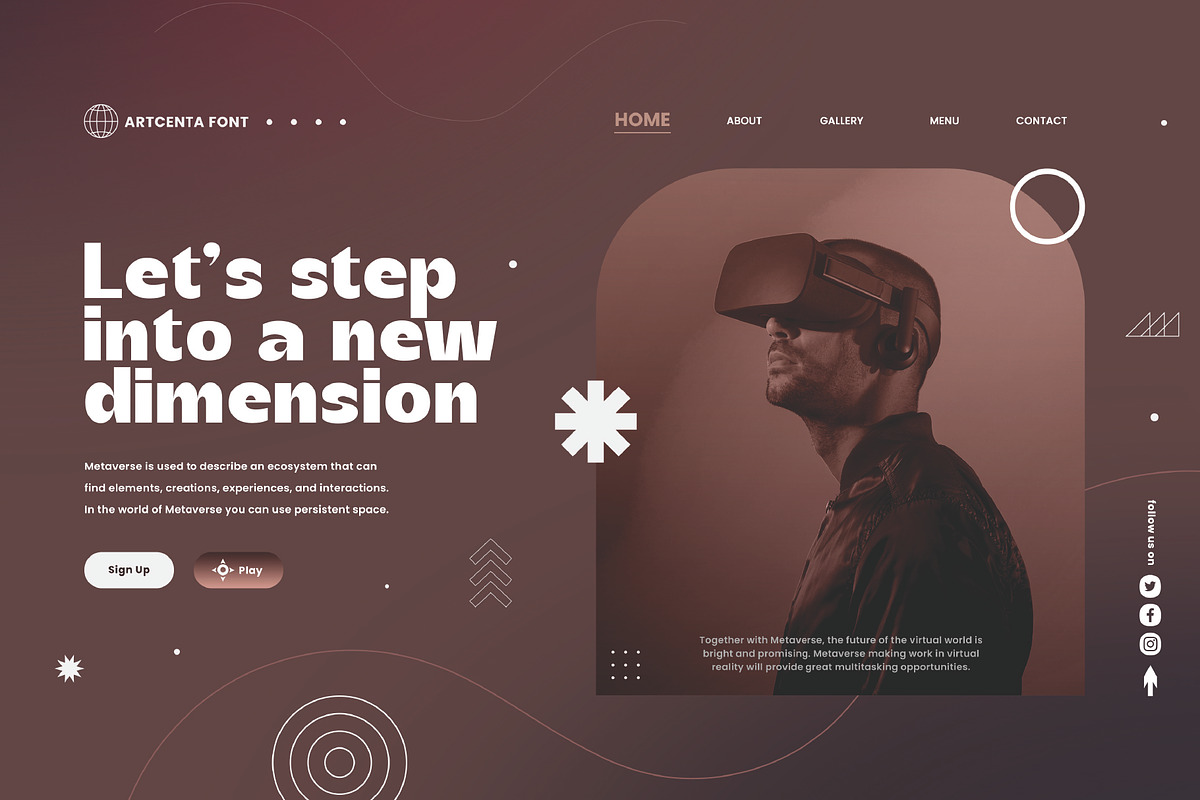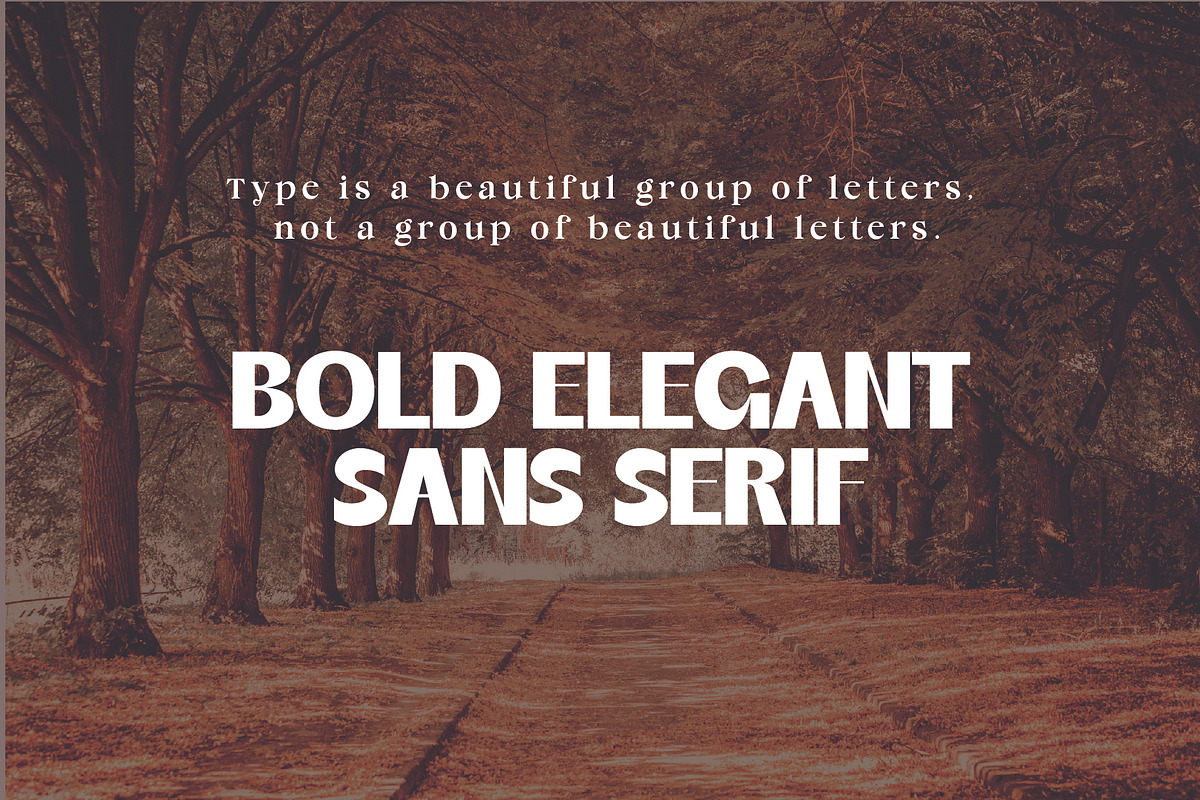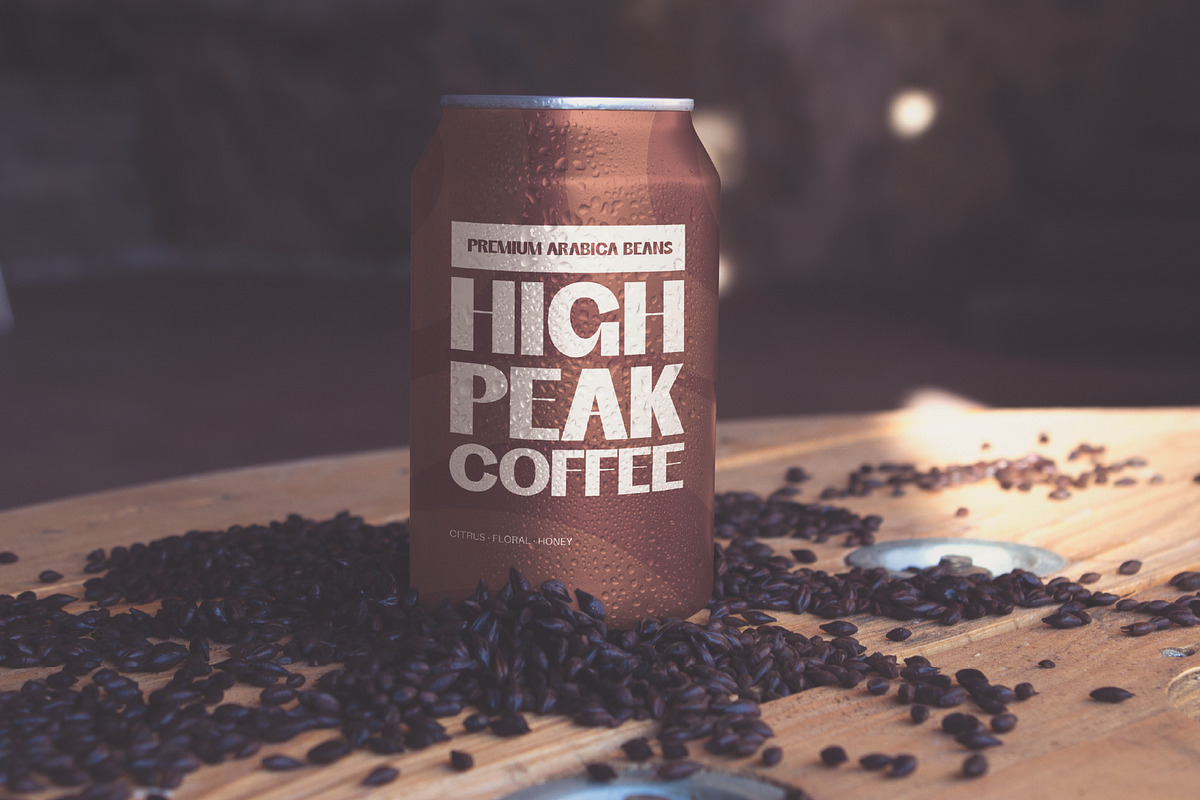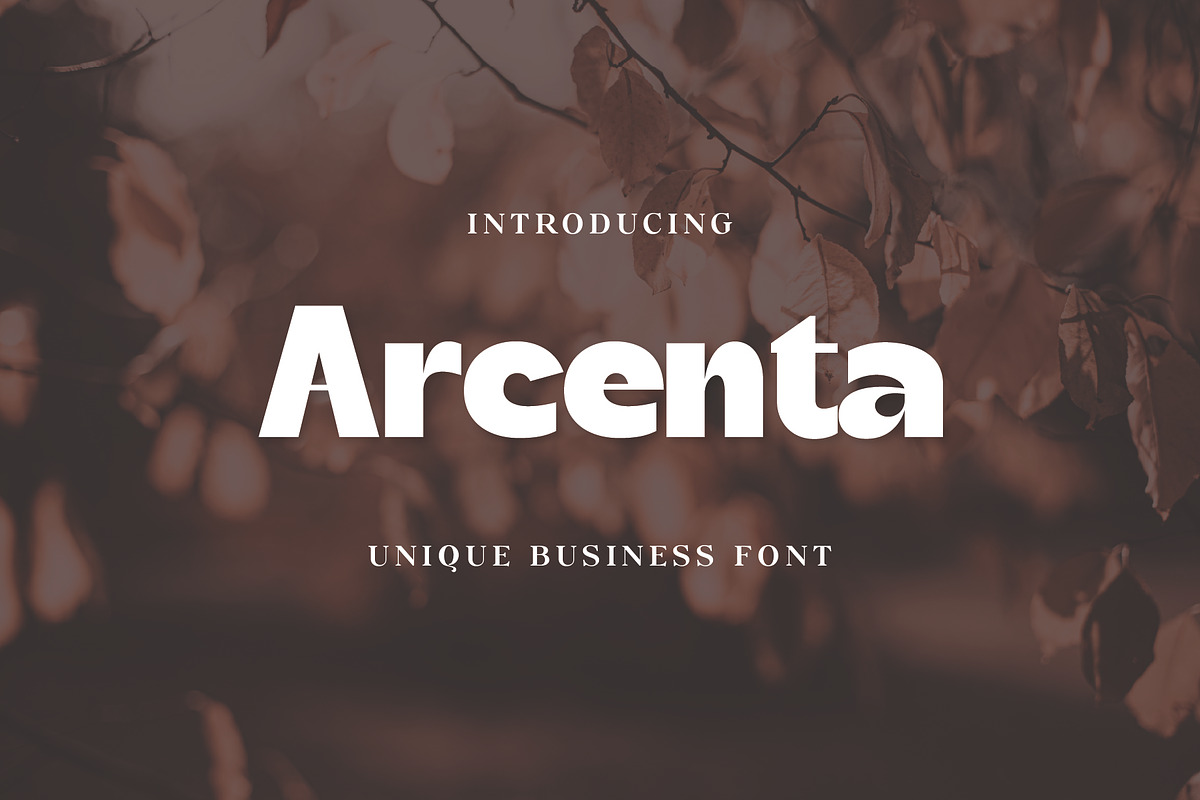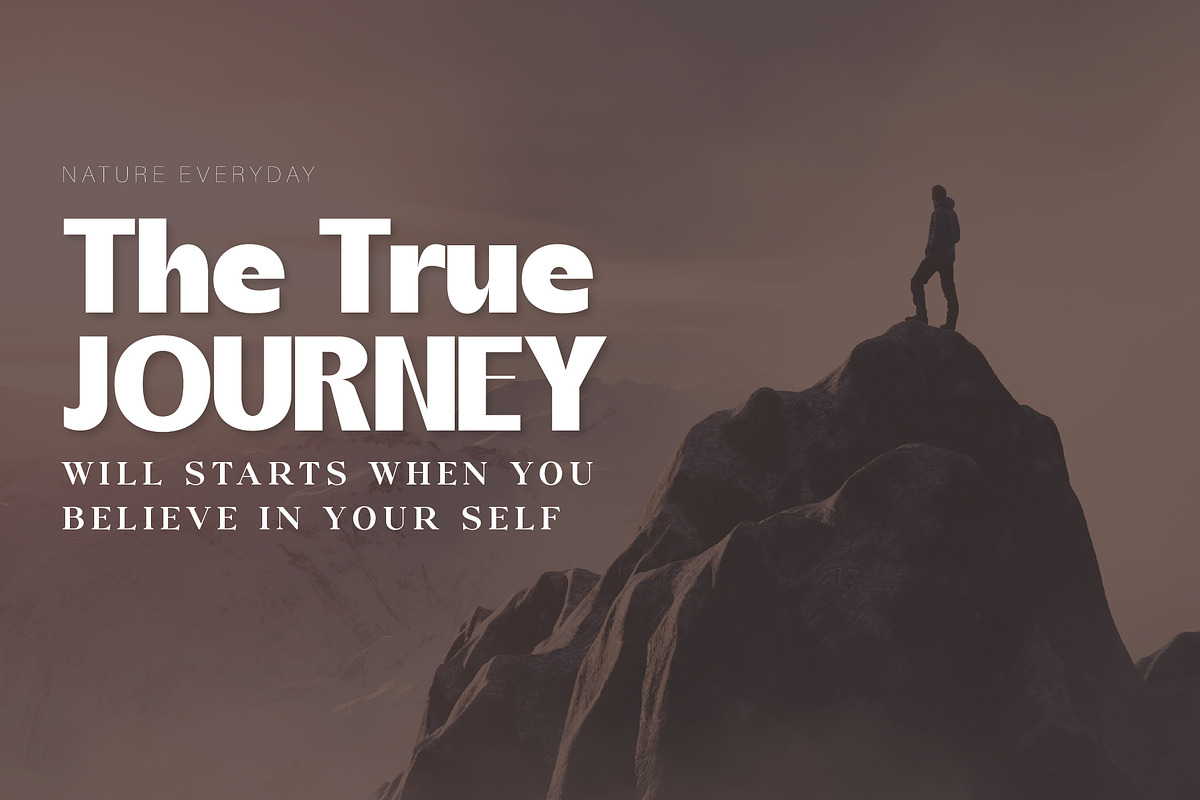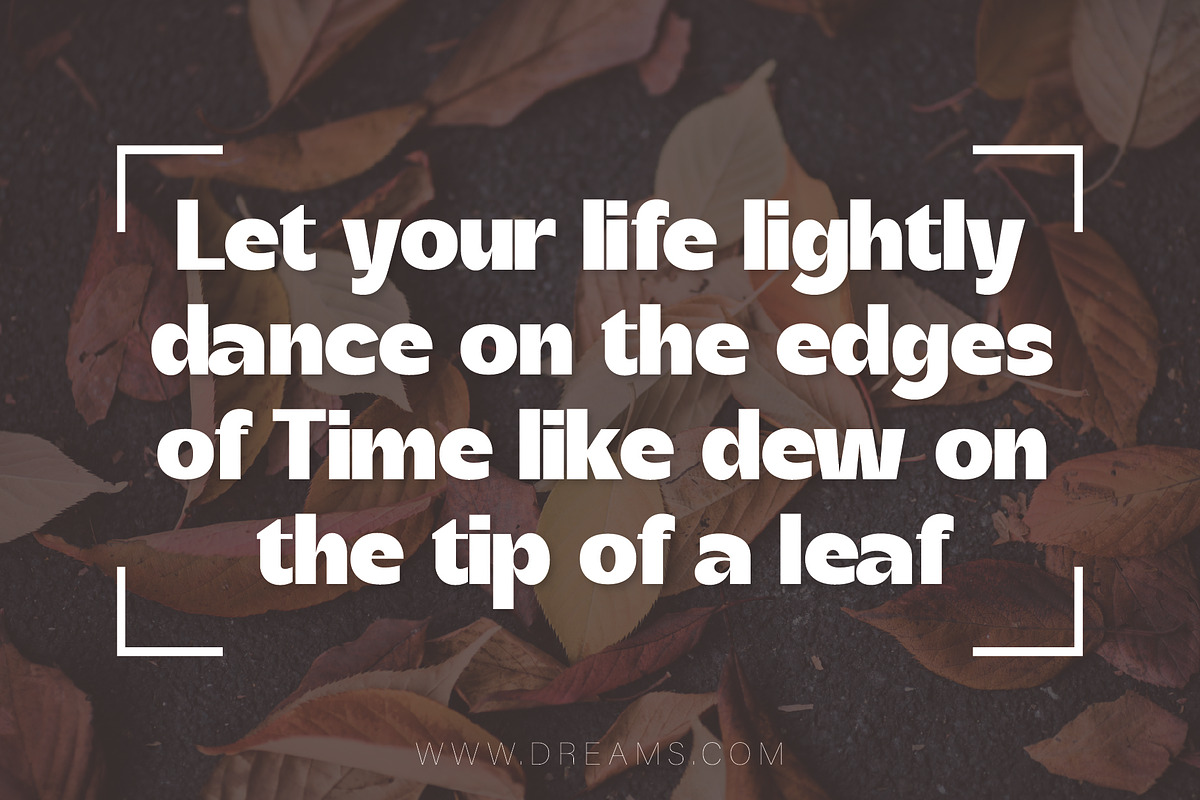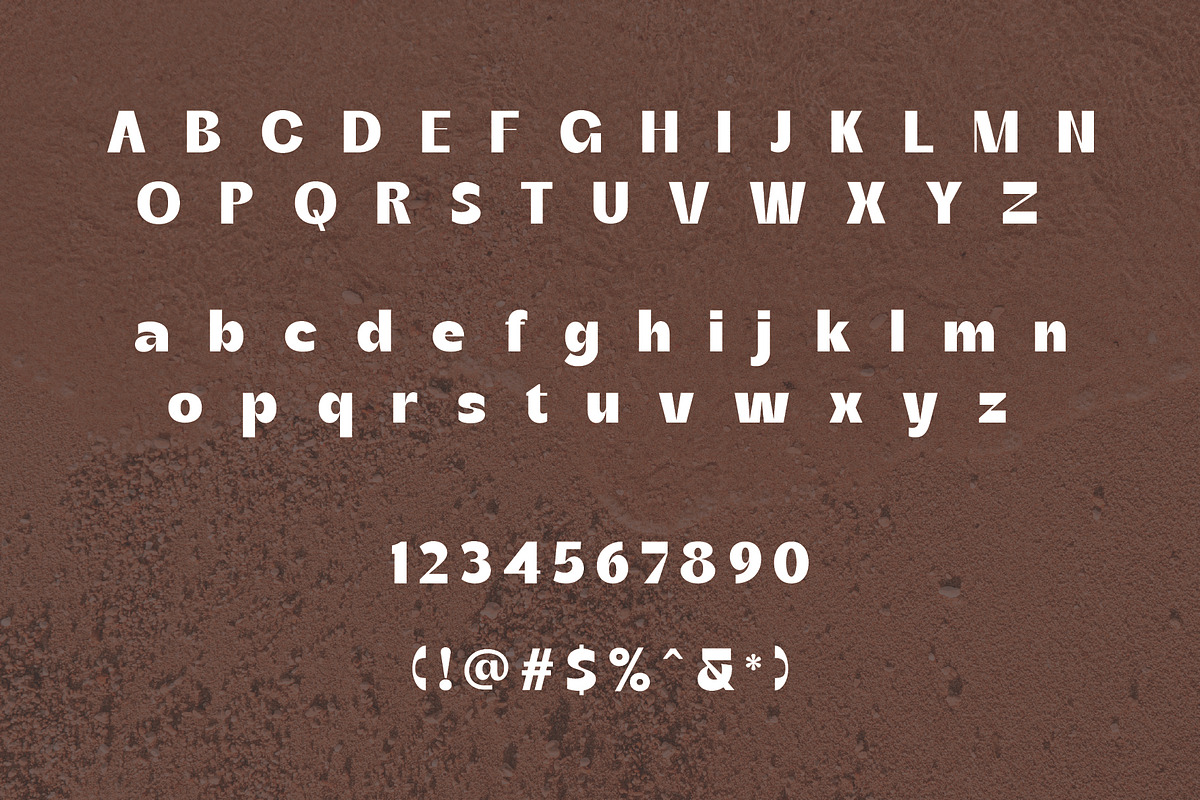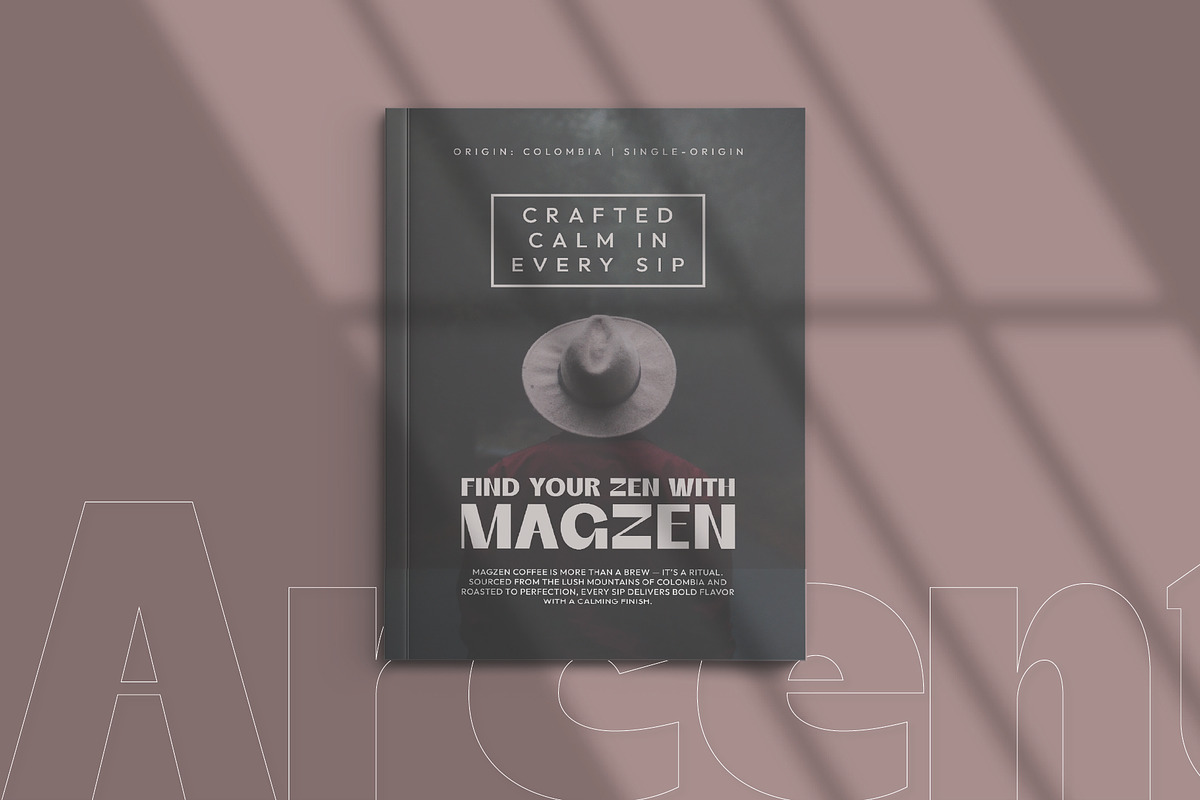
Arcenta | Unique Elegant Sans Serif
Arcenta is a bold and elegant serif typeface that blends classic charm with a modern edge. With high contrast strokes and strong, confident letterforms, Arcenta Bold is ideal for luxury branding, editorial design, headlines, logos, packaging, and fashion-related projects.
Designed to stand out, Arcenta brings a touch of sophistication and authority to any layout. Its bold curves and refined details make it perfect for both digital and print applications, especially where elegance and impact are equally important.
- Uppercase and lowercase letters
- Multilingual language support
Arcenta Bold is a timeless serif font for designers who want boldness with beauty and elegance with strength.